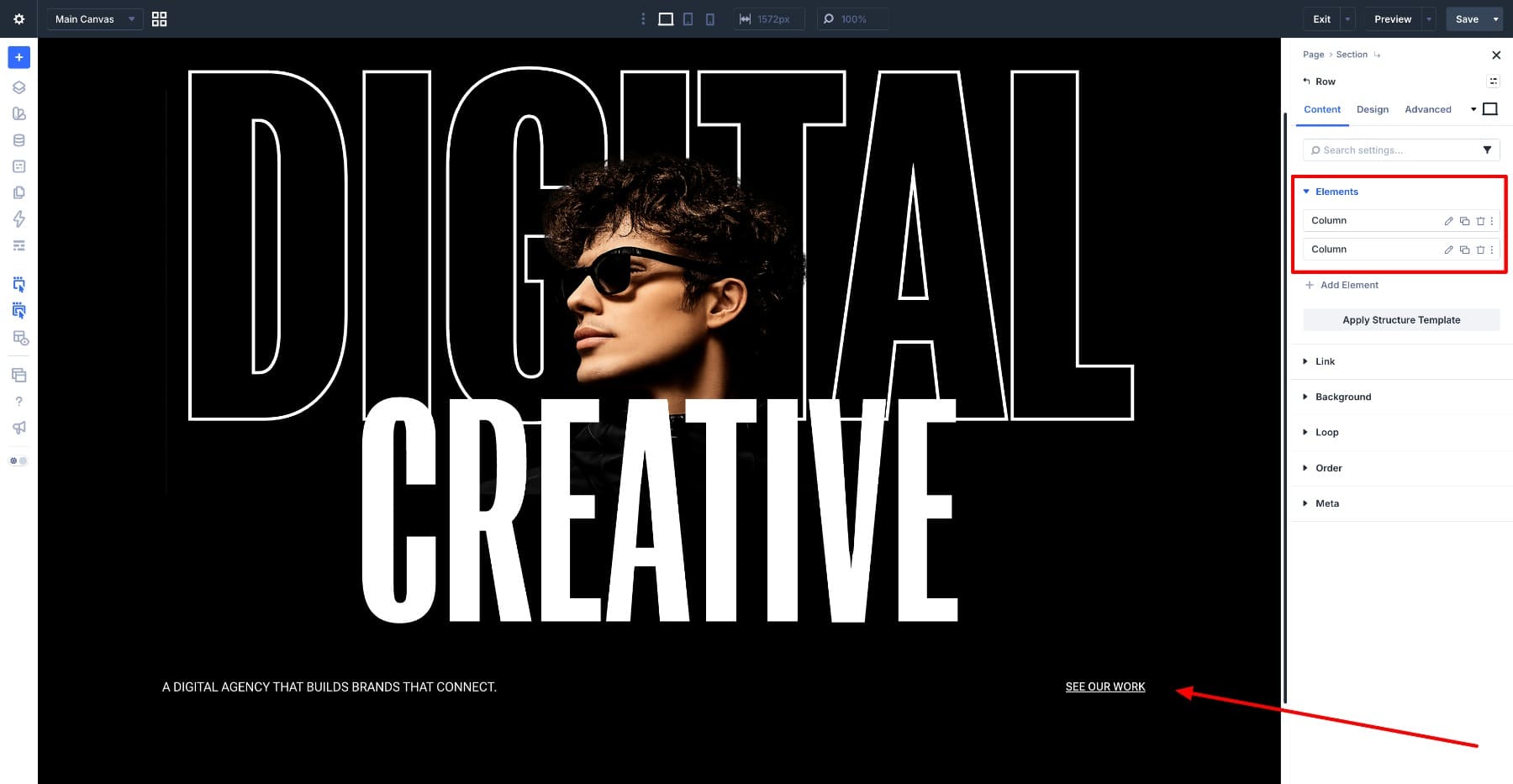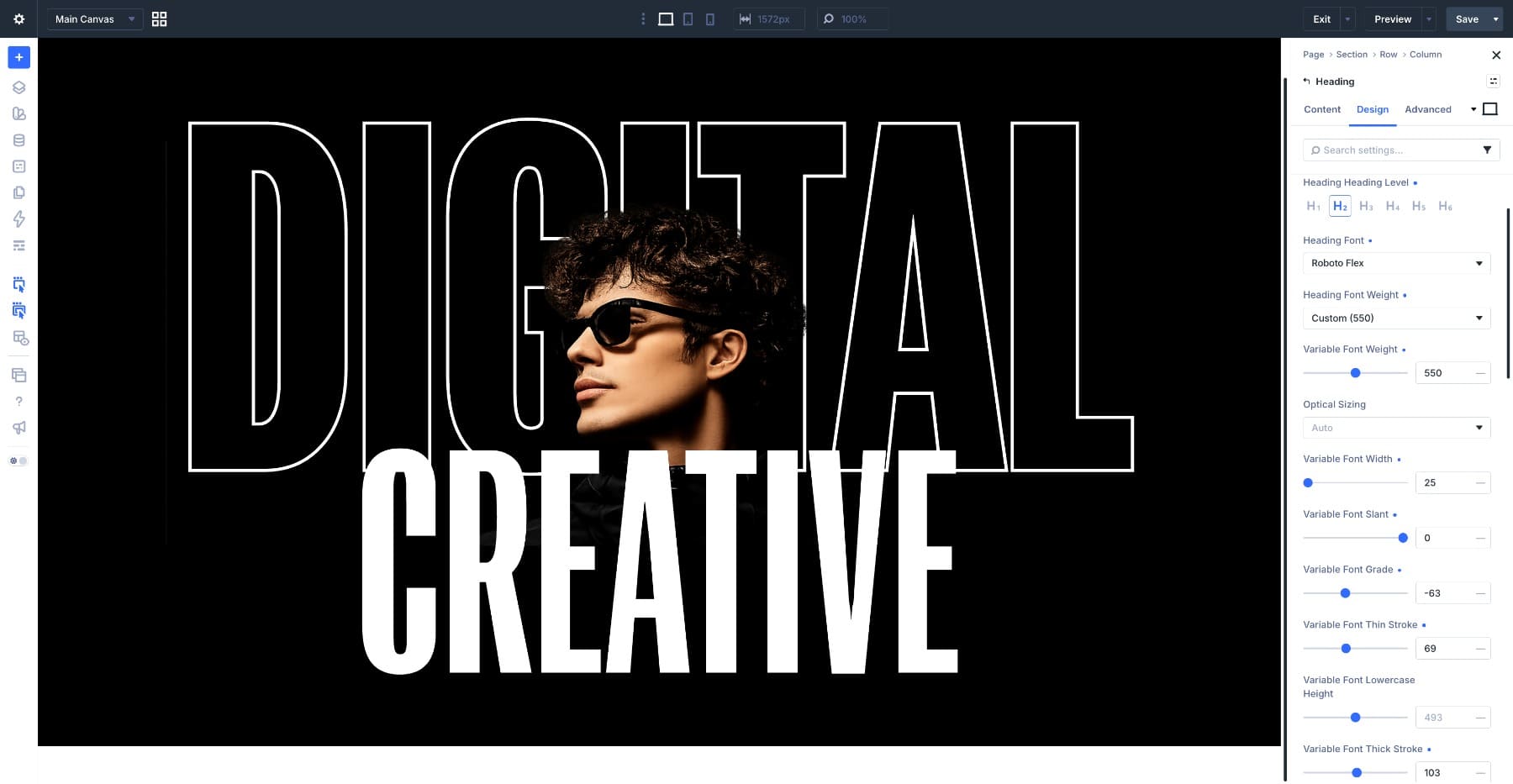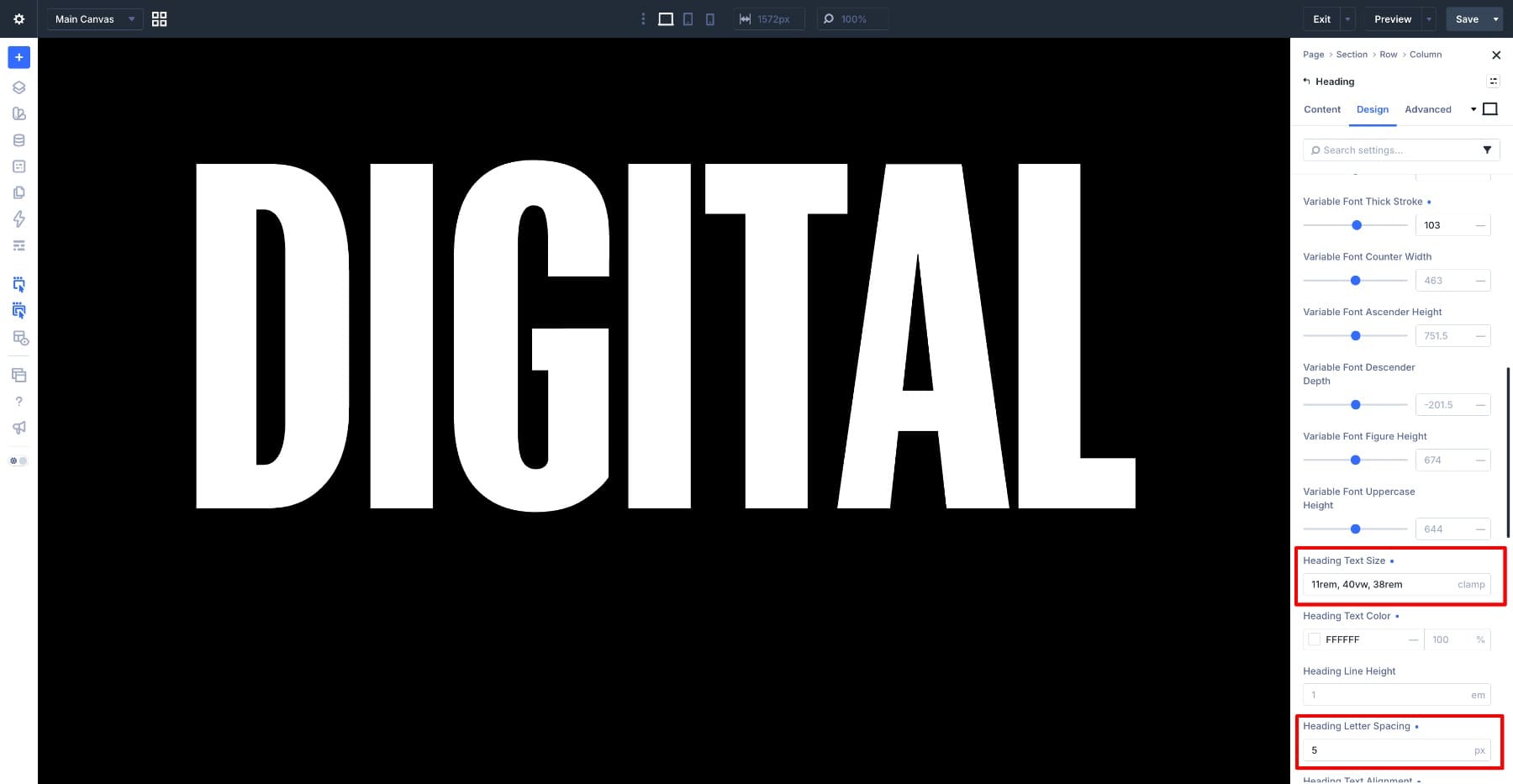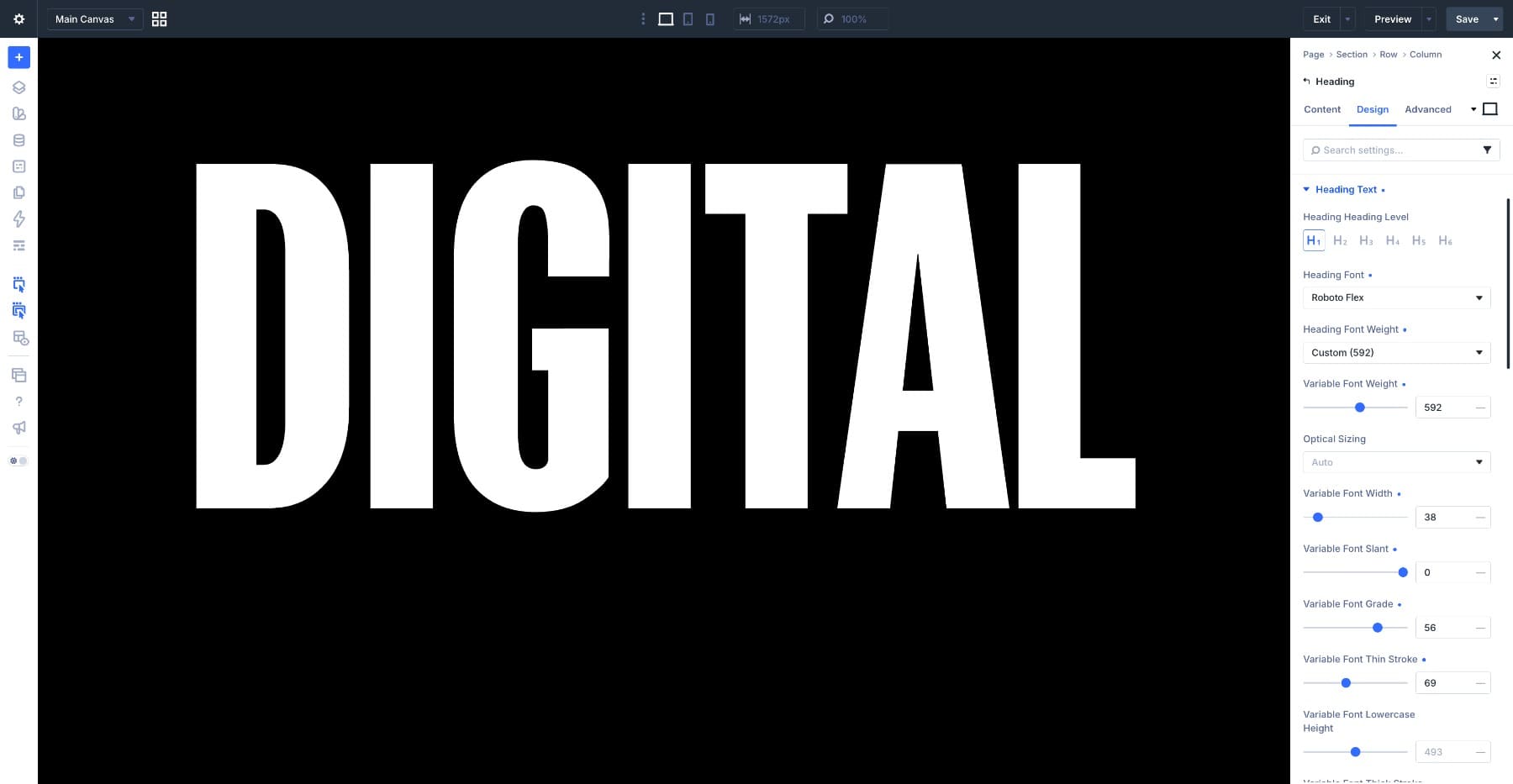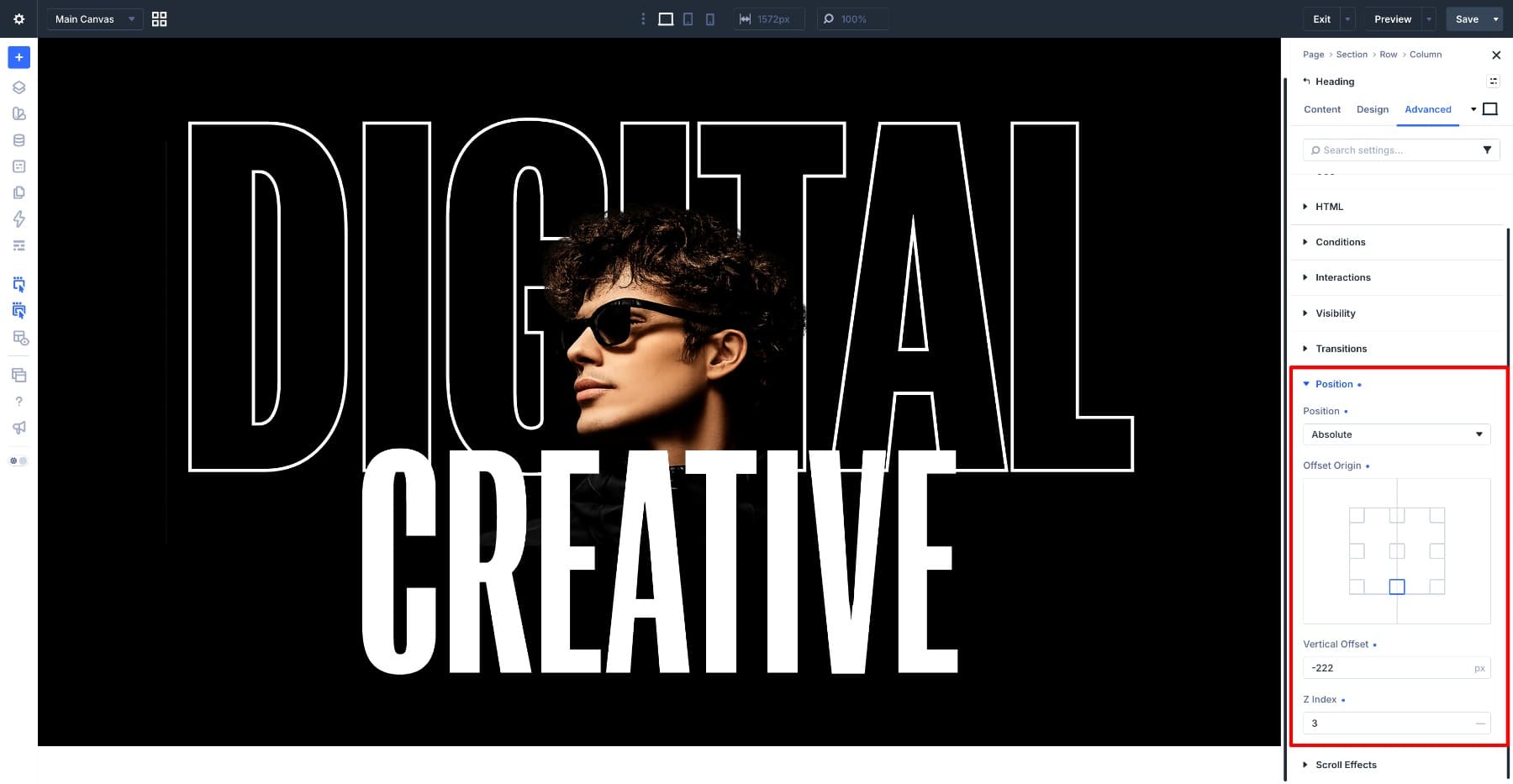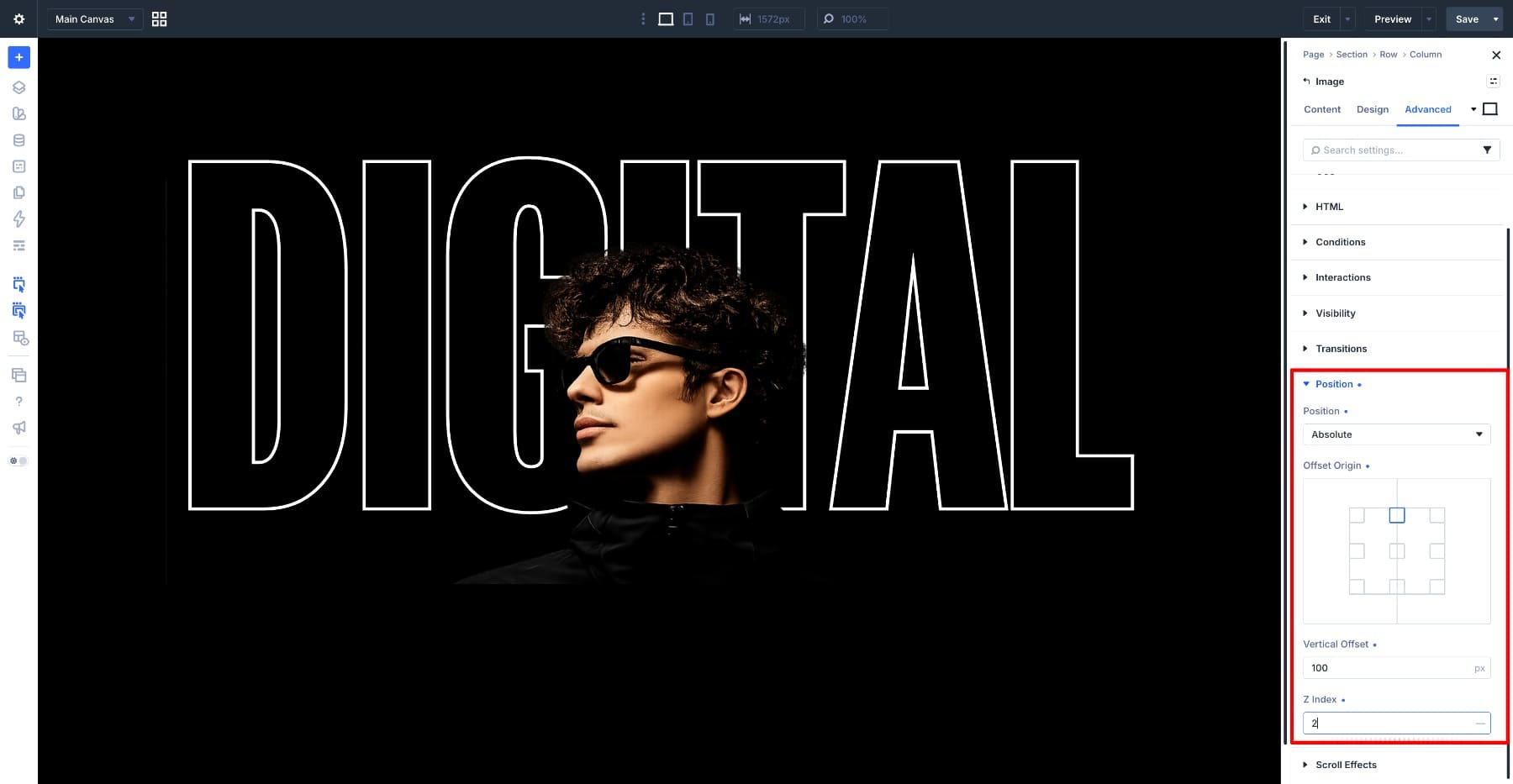
How To Use Textual content Stroke, Textual content Fill, And Variable Fonts In combination In Divi 5
Variable fonts, Textual content Fill, and Textual content Stroke are 3 different typography controls in Divi 5. The font controls the type of the letters. The fill controls what turns out inside them. The stroke controls the threshold.
You’ll use each one on its own, alternatively they grow to be additional tough whilst you combine them. A variable font may make a heading thick enough for a gradient to show clearly. A transparent fill and stroke can turn a word appropriate right into a hollow outline. A big, heavy letterform can grasp an image pattern without dropping readability.
There is no single recipe. Each design underneath uses the identical 3 parts in a different way. The principle layers outlined and forged text spherical a cutout {photograph}. The second uses a gradient-filled amount with a light stroke. The third fills a full-width heading band with an image pattern.
Along the best way by which, we’ll take a look at how variable font axes, Text Fill, Text Stroke, Gradient Variables, and presets art work together so that you’ll assemble additional intentional typography effects immediately inside Divi 5.
Working out Variable Fonts, Text Fill, And Text Stroke
The ones settings live throughout the Design tab of text-based modules and text selection groups, in conjunction with Text, Heading Text, and Establish Text. Variable font controls appear on the subject of the font selection when the selected font is helping them. Fill and stroke settings appear throughout the text effects area of the identical text group.
We covered each fill type in our information to Divi 5’s textual content fill choices. In this instructional, we’ll focus on how the settings affect each other every time you get began combining them.
Variable Fonts
Follow a supported variable font to an element, and Divi 5 shows the axes available for that font. Each axis changes part of the letterform.
Weight controls how heavy the strokes are. Width controls how slender or expanded the letters actually really feel. Depending on the font, you might also see axes very similar to Slant, Grade, Thin Stroke, Thick Stroke, or other font-specific controls.
For this instructional, the essential section is the out of doors area inside each letter. Heavier and wider settings maximum regularly give fills more space to show. Lighter and narrower settings pass away a lot much less room for gradients, images, and strokes to art work.
The open areas inside letters like e, a, o, and g are referred to as counters. If a stroke is simply too thick or a font weight is simply too tight, those counters can start to close up. Keep that all through ideas as we assemble the examples.
Text Fill
Text Fill controls what turns out all the way through the letter shape.
Set Fill Kind to Gradient, and the letters are filled with a gradient. Set it to Image, and the letters grow to be a mask for an image. Set it to Transparent, and the internal of the letters becomes see-through, which fits well when paired with a stroke for outlined text.
The fill best has the internal of the letter to art work with. A heavy heading provides the fill a big flooring. A steady heading provides it a thin strip. This is the reason a gradient can look rich inside a bold heading alternatively just about flat inside a thin one.
Text Stroke
Text Stroke draws a line around the edge of the letters. An important controls are Stroke Width, Stroke Color, and Stroke Position.
Stroke Position problems because it changes how a large number of the fill stays visible. A focused stroke sits partially all the way through the letter and partially outside it. The internal section covers one of the vital important fill. An outside stroke protects additional of the fill because the outline sits previous the letter shape.
For example, a focused 3px stroke can art work correctly on a large, heavy heading on account of there’s however a large number of fill visible all the way through the letters. On a smaller or lighter heading, that exact same stroke can take over a great deal of of the letter and make the fill more difficult to look.
When you wish to have a stroke to stipulate the threshold without decreasing appropriate right into a gradient or image fill, use an outdoor stroke position where available. When you wish to have the stroke to actually really feel additional integrated with the letterform, a focused stroke can however art work, in particular at huge sizes.
How The three Have an effect on Each Other
The font comes to a decision the letter shape. The fill sits inside that shape. The stroke defines the threshold. That order problems. Set the variable font axes first so the letters have the correct weight, width, and counters. Then make a selection the fill. Then decide whether or not or now not the stroke must be refined, bold, focused, or outside.